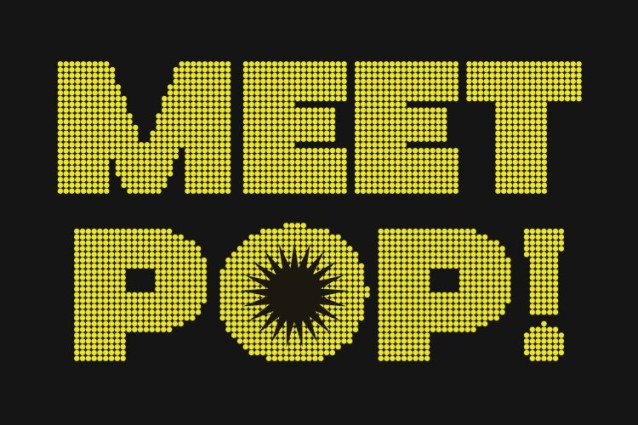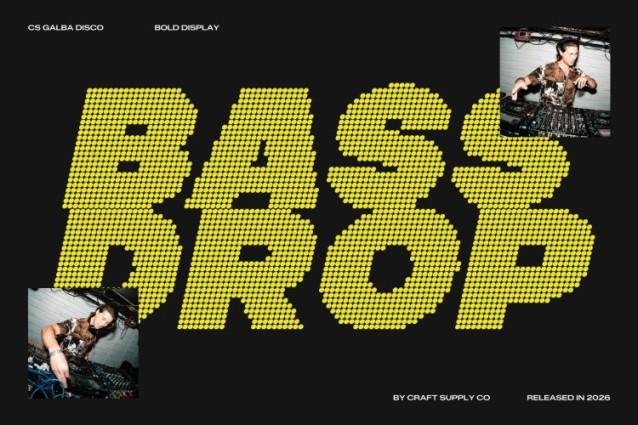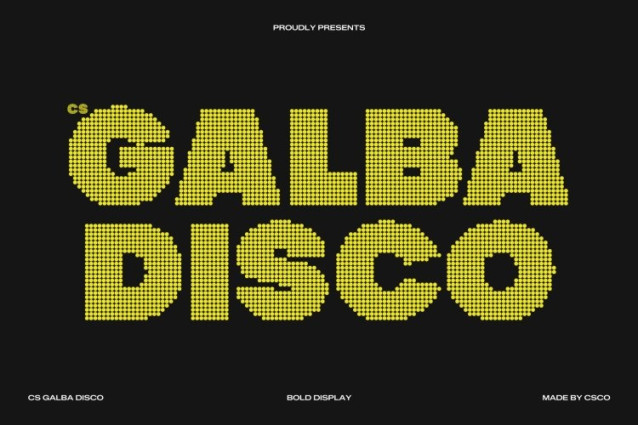
CS Galba Disco Font
CS Galba Disco Font is a bold sans serif display font designed to command attention, now enhanced with a vibrant disco-inspired dotted style. Its strong, modern letterforms combine geometric precision with a lively decorative texture, creating a striking visual presence that instantly stands out. The dotted disco effect adds rhythm and sparkle, transforming its bold shapes into dynamic typographic statements.
Geometric Precision with Luminous Detail
Built on sharp geometric forms, this font maintains clarity and readability while gaining a playful visual glow from its dotted texture. The structured shapes ensure balance and consistency, while the disco-style dots introduce movement and personality perfect for designs that want to feel both modern and energetic.
Lively Character with Bold Expression
This font radiates confidence and excitement. Its strong proportions and rhythmic dot pattern give every word a vibrant sense of motion, turning simple headlines into bold visual highlights. The result is typography that feels powerful, stylish, and full of contemporary energy.
Perfect for Modern Branding and Impactful Displays
Ideal for headlines, posters, editorial layouts, digital campaigns, and branding, this font adapts beautifully across creative projects that require bold visual impact. Its fusion of geometric strength and sparkling disco texture ensures designs feel fresh, memorable, and full of personality.